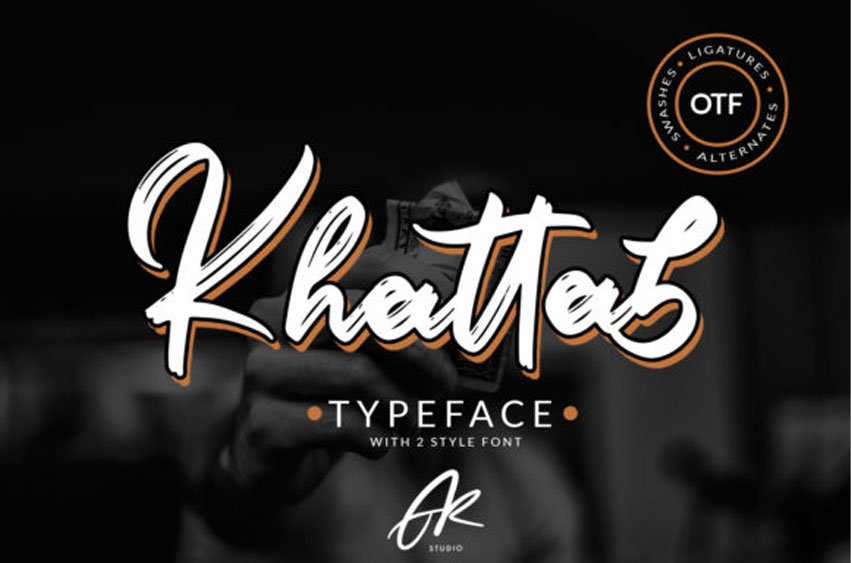
Khattab Font
Khattab Font is a bold and modern script that will turn any design idea into a standout!
It fits in headlines, logos, posters, flyers, invitations, name cards, branding materials, print media, editorial layouts, and many more.